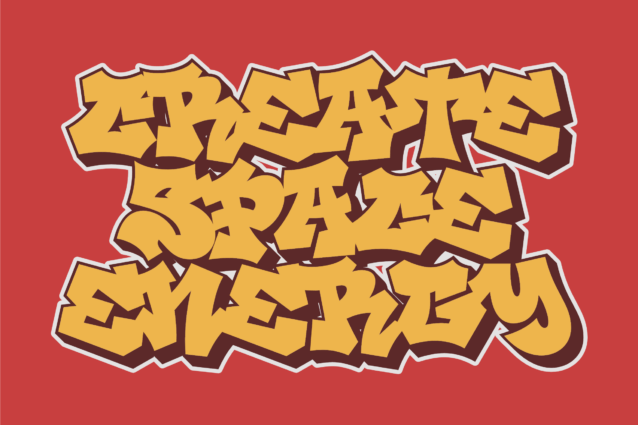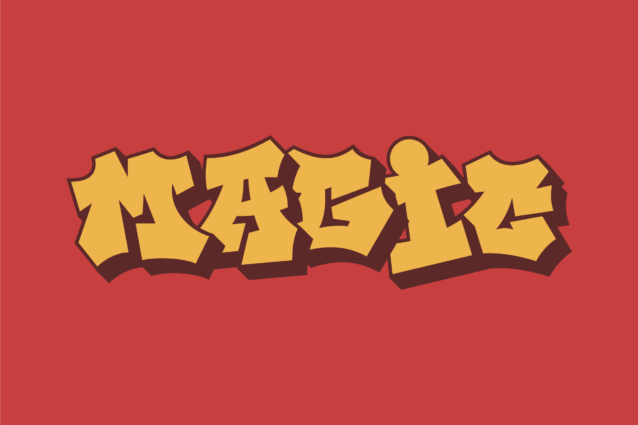
Spraystrom Font
Spraystrom Font is a bold and dynamic graffiti-inspired font designed to amplify urban creativity. Each letter embodies a daring personality with sharp, striking details, making it perfect for posters, merchandise, street art, or branding projects that aim to convey rebellion and modern style. This font exudes energy, artistry, and unstoppable spirit.